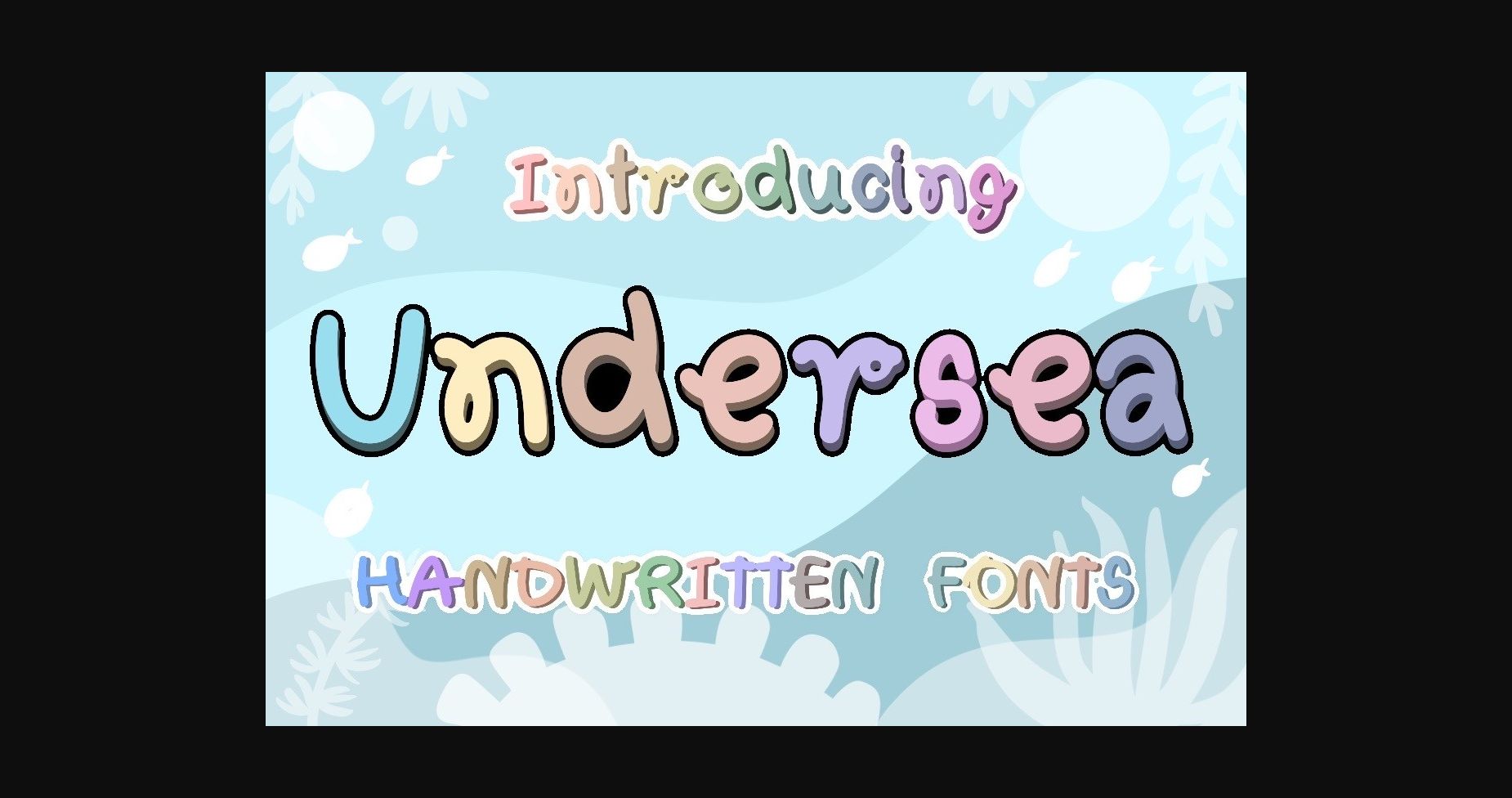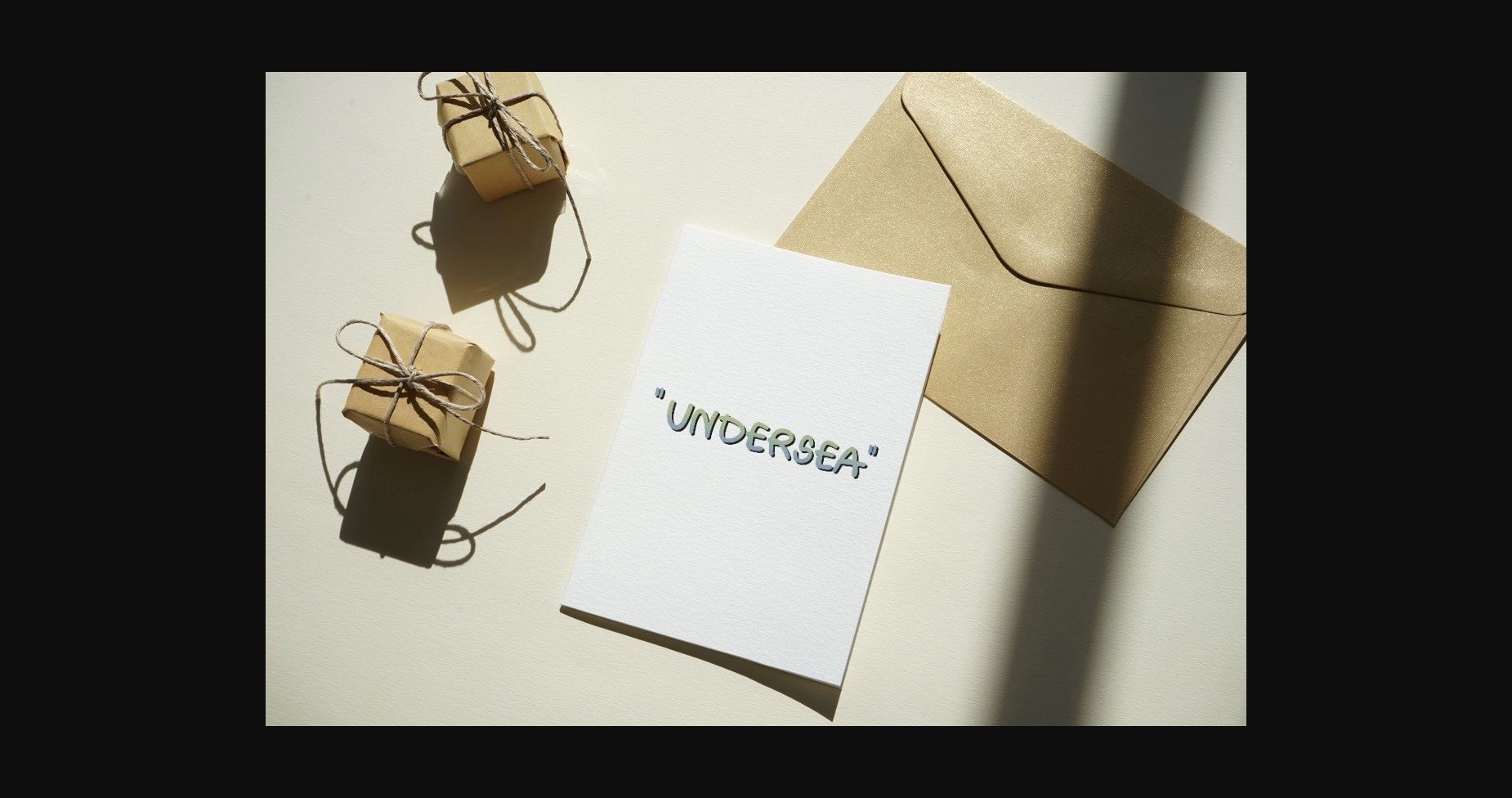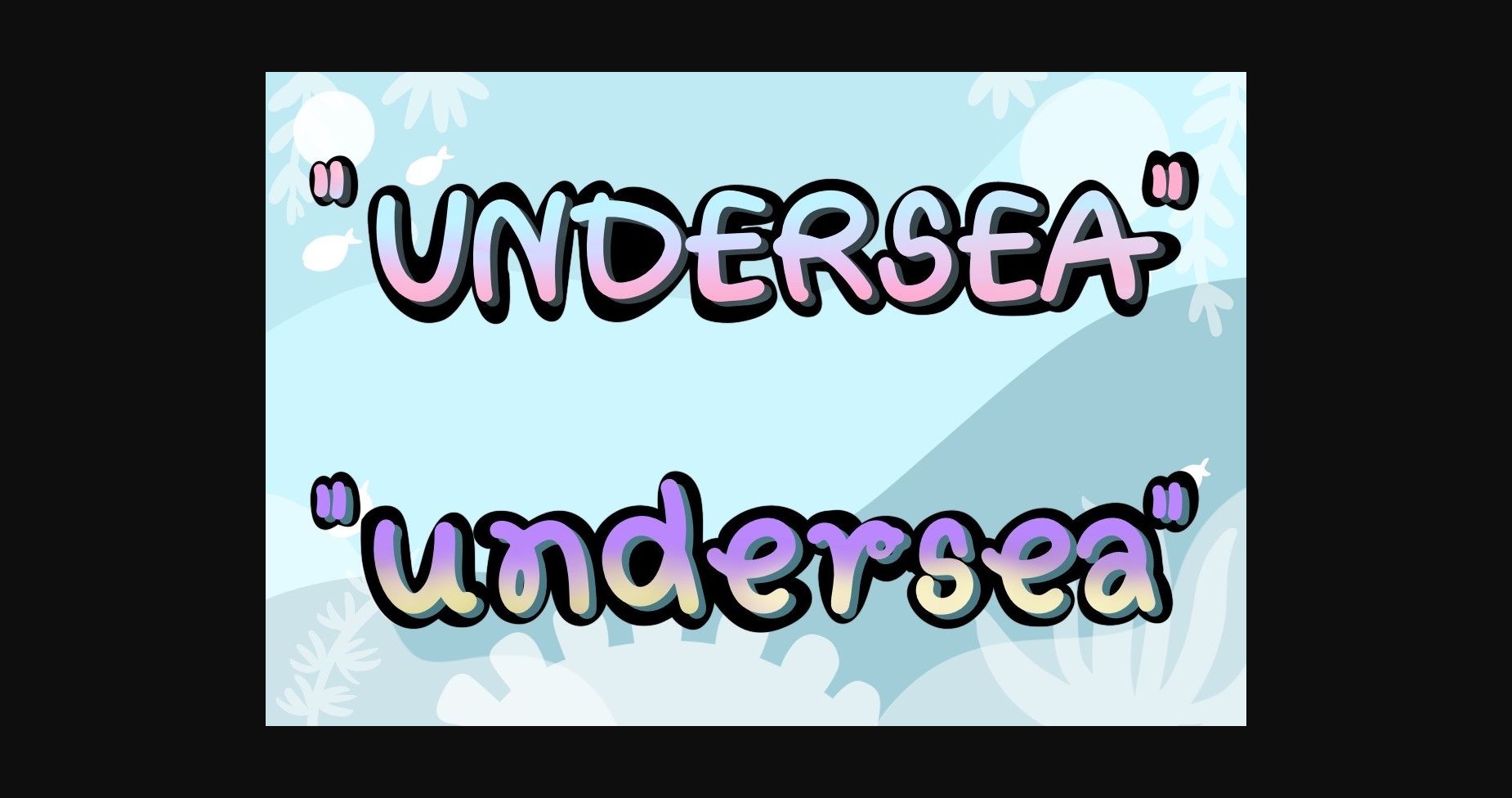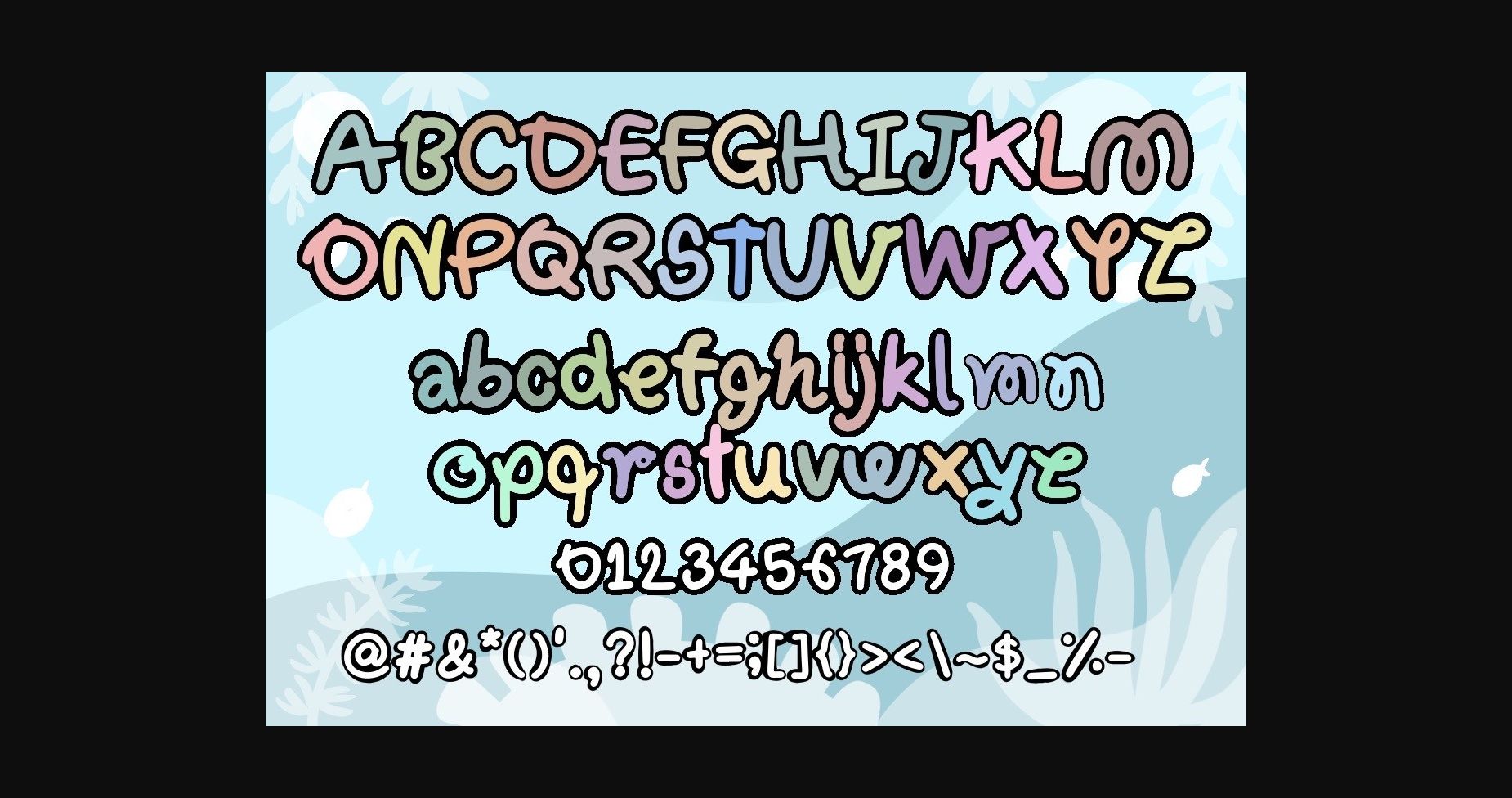
About Undersea Font
Undersea is a vintage and stylish script font, designed to add a touch of elegance to any project. With its graceful and fluid letterforms, this font exudes a sense of beauty and refinement that is perfect for branding, invitations, and editorial design.